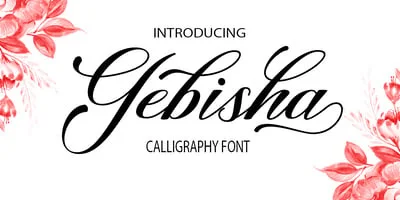
Gebisha Script
Gebisha Script Font
Gebisha Script Font is ideal for elegant calligraphy projects, sophisticated wedding invitations, luxury brand signatures, graceful beauty product packaging, refined personal stationery, boutique business logos, and flowing artistic expressions.
What makes Gebisha Script Font exciting is its flowing elegance and calligraphic sophistication, featuring graceful script letterforms that capture the essence of handwritten artistry while delivering refined visual beauty and authentic calligraphy charm.
The Gebisha Script Font family includes Regular, Bold, and Ornamental versions, plus decorative swashes, elegant ligatures, and flowing alternates that enhance the font's sophisticated character and calligraphic possibilities.
Gebisha Script Font embodies the timeless art of elegant handwriting and the sophisticated beauty of traditional calligraphy through masterful script typography design. This graceful typeface captures the fluid movement of skilled penmanship and the personal touch of handcrafted lettering, creating an elegant visual language that speaks to calligraphy enthusiasts and sophisticated brands who value artistic craftsmanship, personal expression, and the enduring appeal of beautiful handwritten communication. The font's flowing character and calligraphic appearance make it perfect for luxury stationery companies, wedding professionals, and elegant lifestyle brands that want to communicate refinement, artistry, and the sophisticated appeal of handwritten elegance.
Wedding professionals and luxury stationery brands consistently choose Gebisha Script Font for projects that require authentic calligraphic credibility and elegant visual appeal. The typeface's flowing construction and sophisticated personality make it exceptionally effective for wedding planners, luxury invitation designers, and boutique brands where handwritten elegance and calligraphic sophistication are paramount. Each character has been crafted with calligraphic precision to ensure maximum beauty across all elegant applications and sophisticated environments.
The calligraphic advantages of Gebisha Script Font extend beyond its elegant appeal to include practical functionality for diverse luxury applications. The font maintains excellent readability in formal settings while delivering the distinctive character that creates memorable elegant experiences and connects with audiences seeking authentic handwritten sophistication. Its comprehensive character set includes decorative symbols and calligraphic elements that make it particularly suitable for formal documentation and elegant communication.
Wedding venues, luxury invitation companies, and boutique lifestyle brands frequently incorporate Gebisha Script Font into their brand identity systems because of its ability to instantly convey calligraphic authenticity and handwritten sophistication. The typeface's flowing aesthetic helps establish credibility in luxury markets while appealing to customers who value artistic craftsmanship, elegant beauty, and the sophisticated experiences that come from authentic handwritten artistry and graceful calligraphic expression.